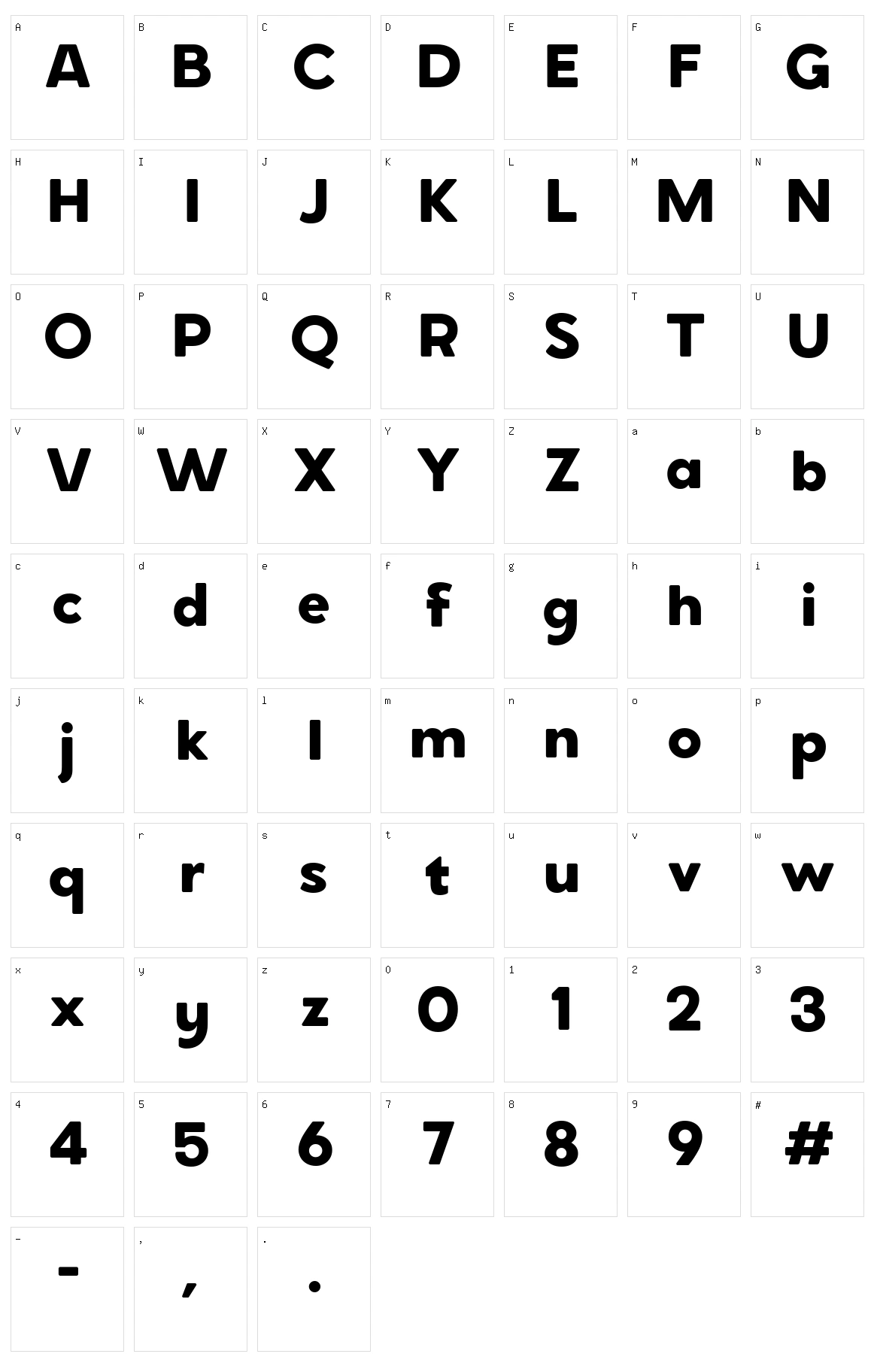
The free font ZT Grafton is carefully designed by Sandi Dez, showcasing a thoughtful balance of creativity and usability and falls under the Sans serif font style. When you download the ZIP file, it contains only 14.45 KB of font files, making it lightweight and quick to download. Please review the license details below to understand permitted usage and distribution rights. If license information is not available, we recommend using this font for personal projects only or contacting the author directly for commercial usage permissions.